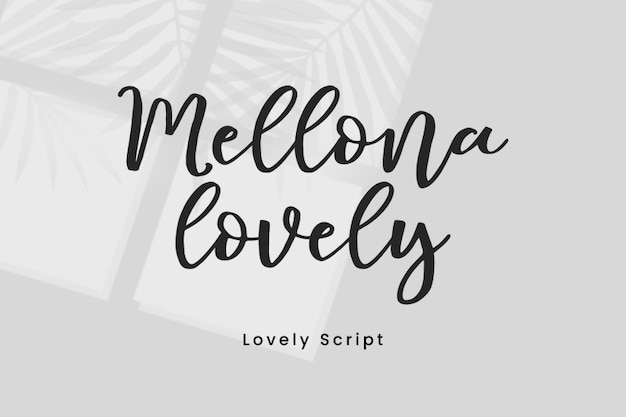
Mellona Lovely Script
Mellona Lovely Script Font
Youngtype
Mellona Lovely Script is a beautiful signature font with lovely details. It is an elegant addition for your projects, such as backgrounds, templates, presentations and much more. Download it now and start designing with this unique handwritten typeface.